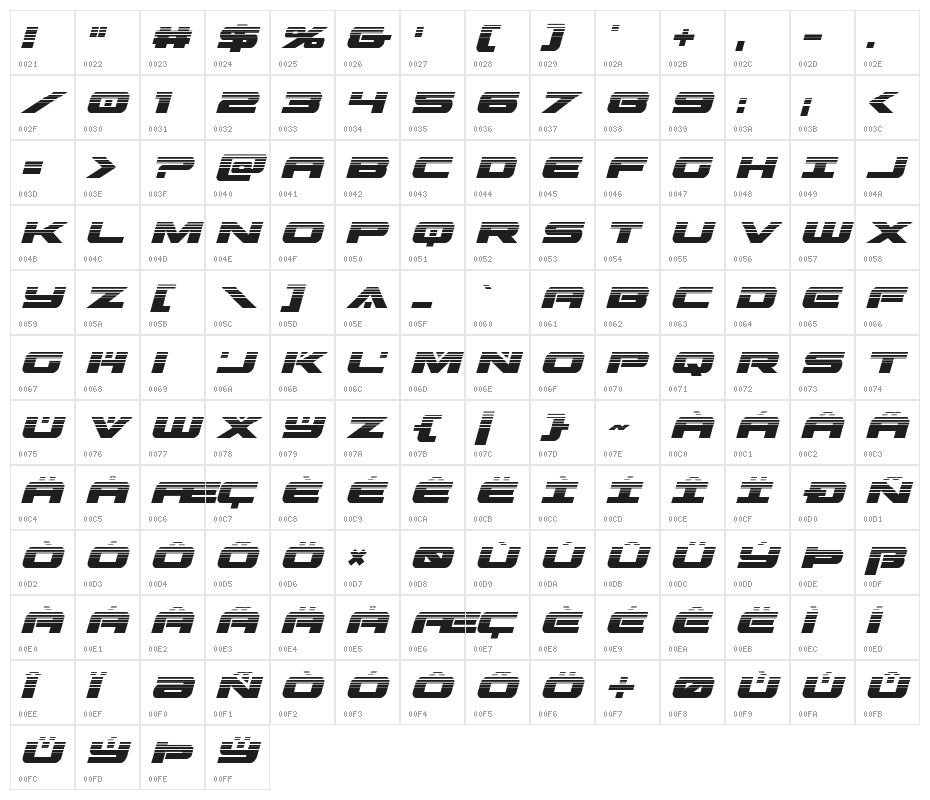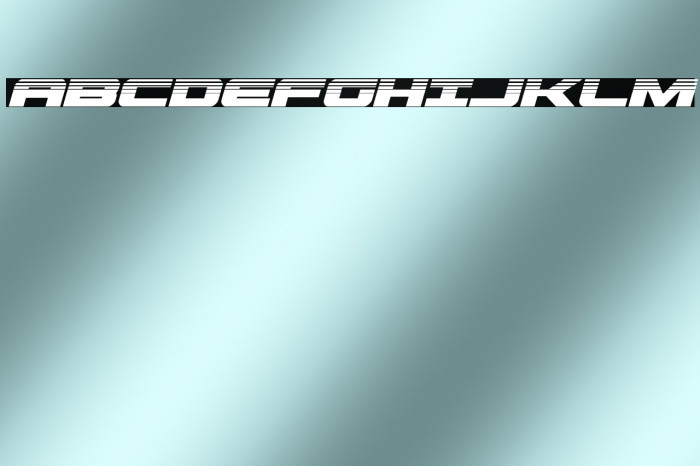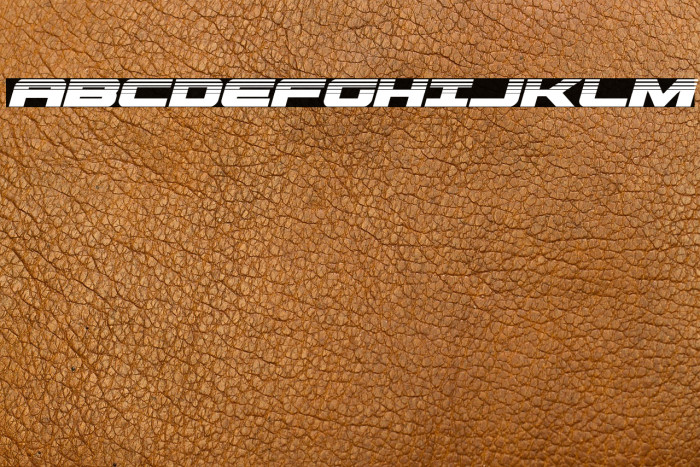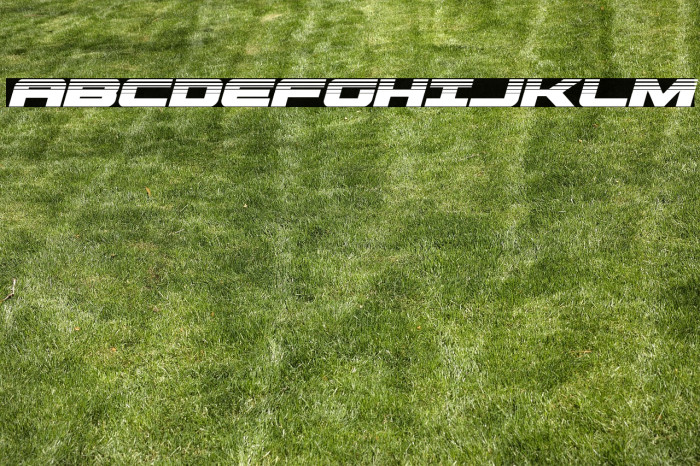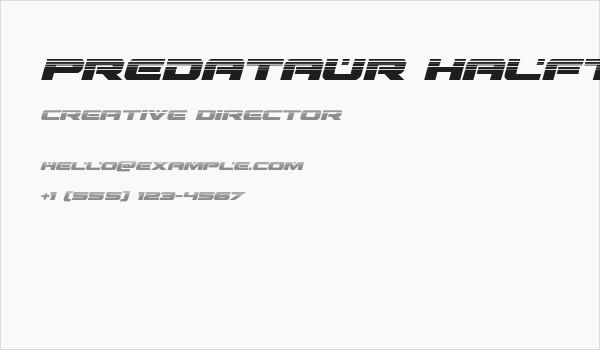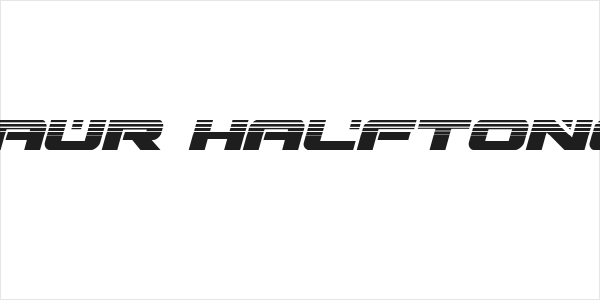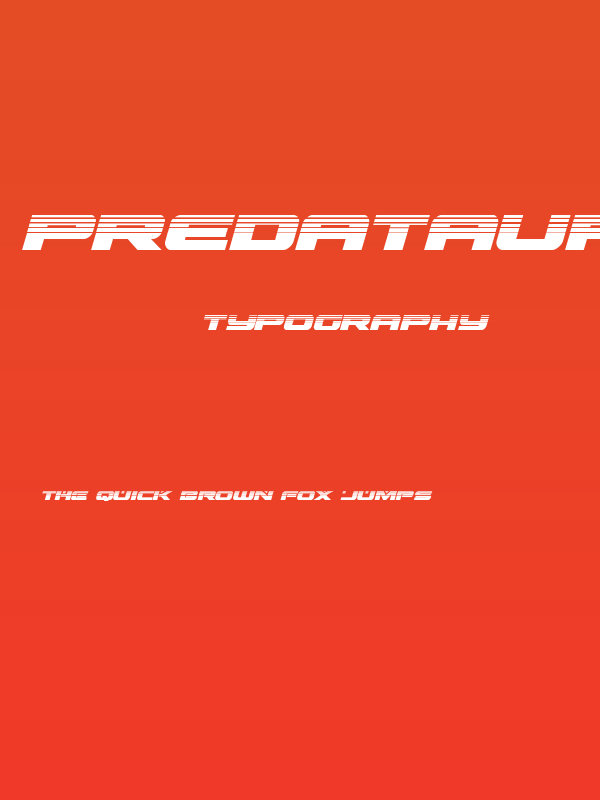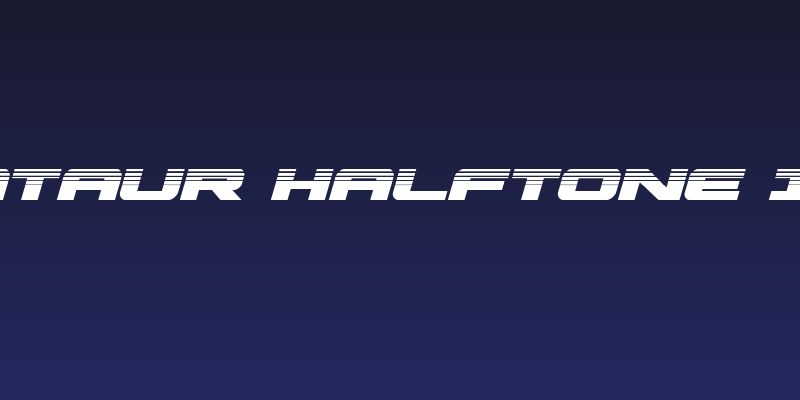
Predataur Halftone Italic Font
Predataur Halftone Italic Description
This font features a bold, futuristic design with a halftone effect that gives it a dynamic and energetic appearance. The characters are italicized, adding a sense of motion and speed. The uppercase letters are particularly striking, with sharp angles and a distinct geometric style. The numbers and special characters maintain this aesthetic, ensuring consistency across all glyphs. The halftone pattern within each character adds depth and texture, making it ideal for eye-catching designs.